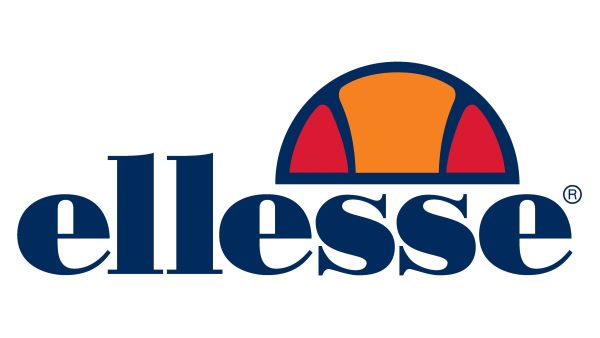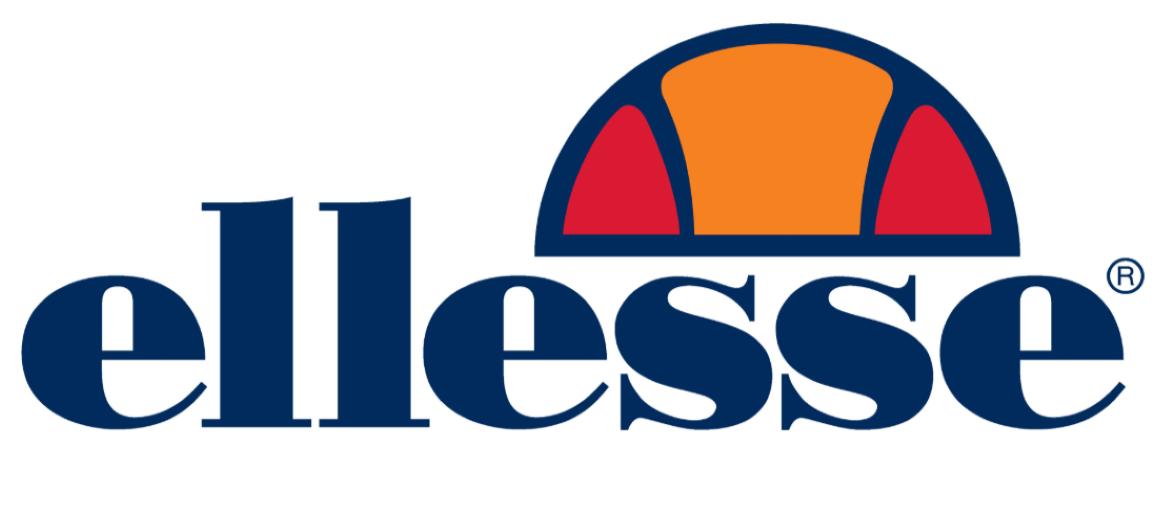
Ellesse Font
What Font is Ellesse?
Ellesse Font features a stylish and sporty aesthetic that perfectly reflects the brand’s dynamic identity. The typeface closely resembles Gourmandise by ClaudeP, which is free for personal use. With its smooth curves and bold yet approachable letterforms, this font captures the balance between performance and fashion — just like Ellesse’s apparel. It’s an excellent choice for modern sports branding, lifestyle projects, or any design aiming for an energetic yet refined look.
About Ellesse
Ellesse is an Italian sportswear brand founded in 1959 by Leonardo Servadio in Perugia, Italy. Known for blending athletic functionality with streetwear style, Ellesse gained fame for its tennis and ski apparel. Its signature logo, combining a half-ball and ski tips, has become a symbol of vintage athletic fashion. Today, Ellesse continues to embody retro-inspired design, merging sport and lifestyle in a timeless way.